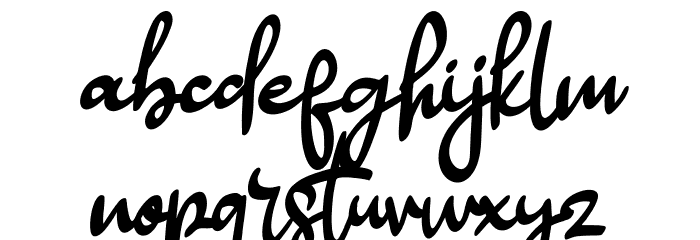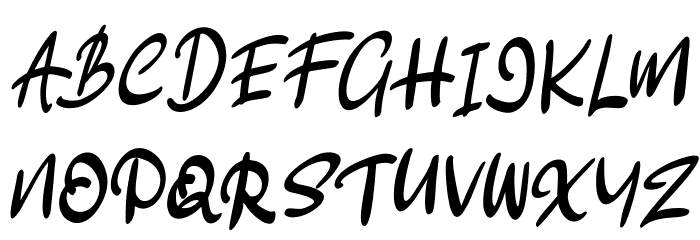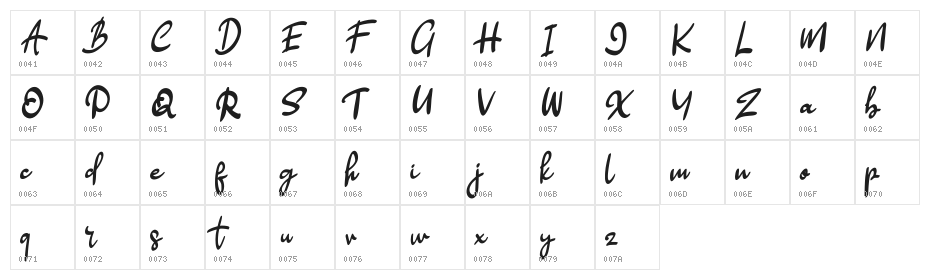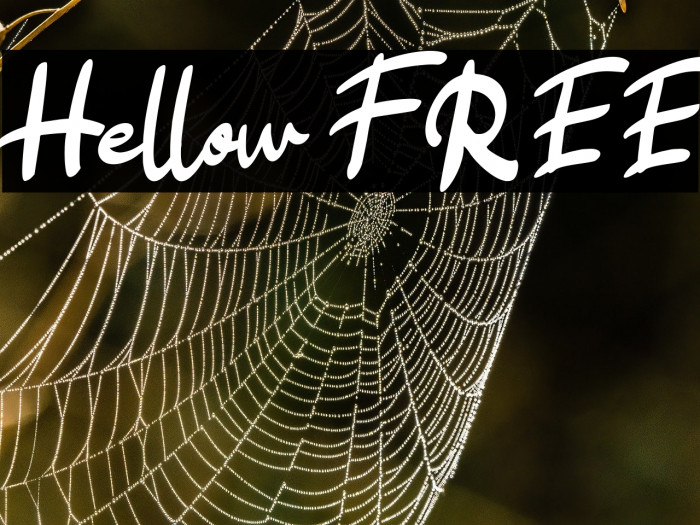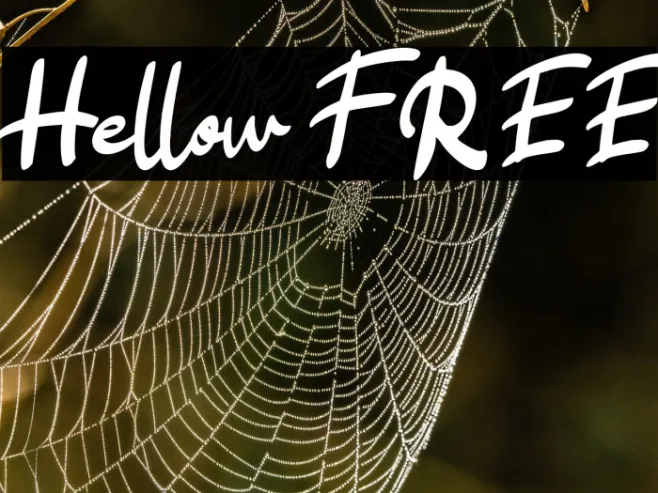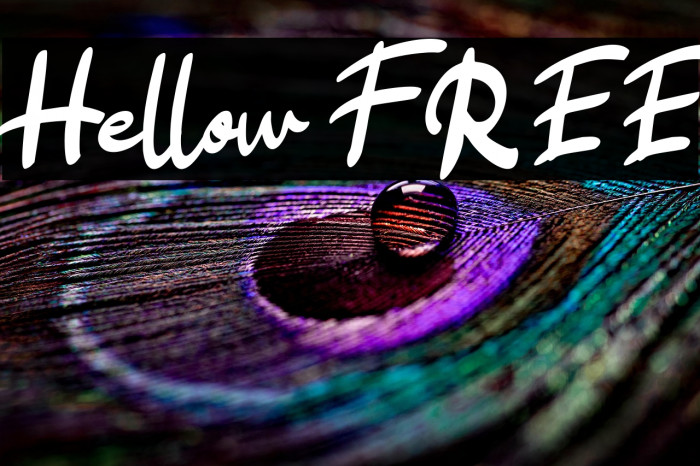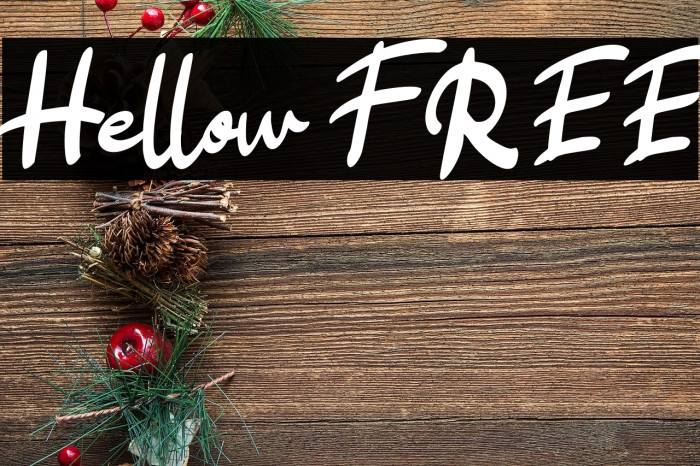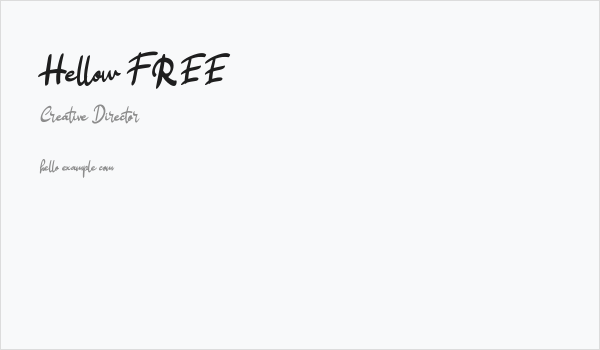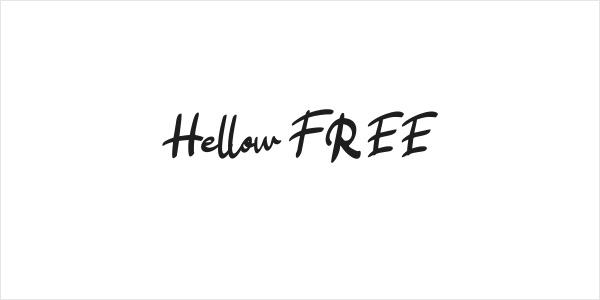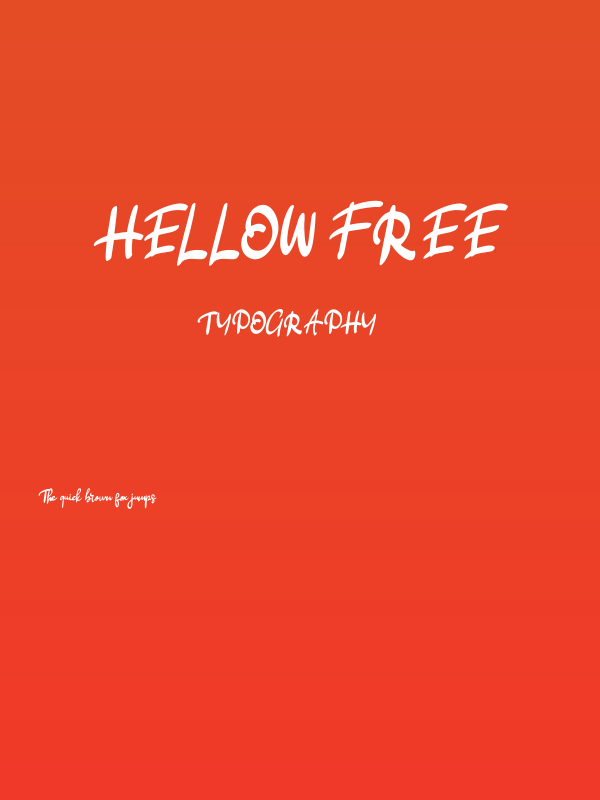
Hellow FREE Font
This font features a dynamic, flowing script style that mimics natural handwriting. The letters are connected, creating a seamless and elegant appearance. The strokes are smooth and slightly varied in thickness, adding a touch of sophistication and personality. The uppercase letters are bold and expressive, while the lowercase letters maintain a consistent flow, enhancing readability. This font is perfect for projects that require a personal touch, such as invitations, greeting cards, or branding materials. Its lively and engaging style makes it suitable for both formal and informal contexts.
A dynamic, flowing script font with a natural handwriting style.
- Proposed Projects: Ideal for invitations, greeting cards, branding, and personal projects.
- Use Case: Logos, Headlines, Invitations